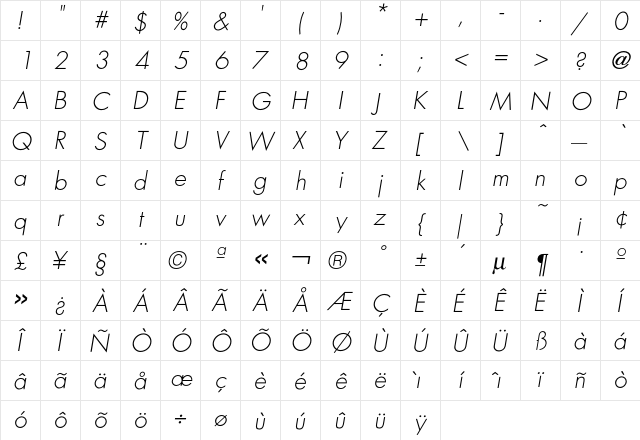
FuturaICG LightOblique Font Preview
Design Context for FuturaICG Typeface
FuturaICG has a distinctly futuristic character, with geometric precision and clean angles that feel at home in technology, gaming, and sci-fi contexts. The slanted form adds forward momentum and visual energy. Its slender proportions lend an understated elegance to any composition.